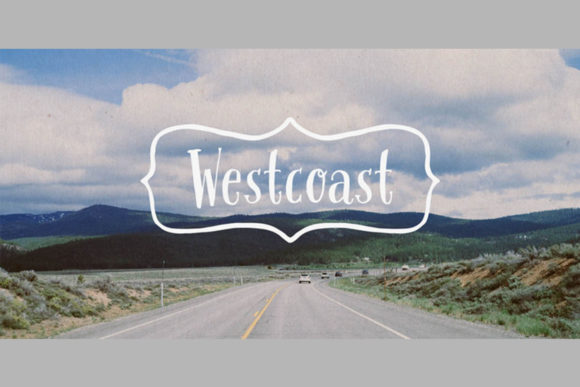
Pacific Northwest Letters Font
db-ku.com - Script & Handwritten -- Pacific Northwest Letters is a fun handwritten font. It has been carefully hand-painted and comes in two styles: regular and rough. Take your designs to the next level with this great font!